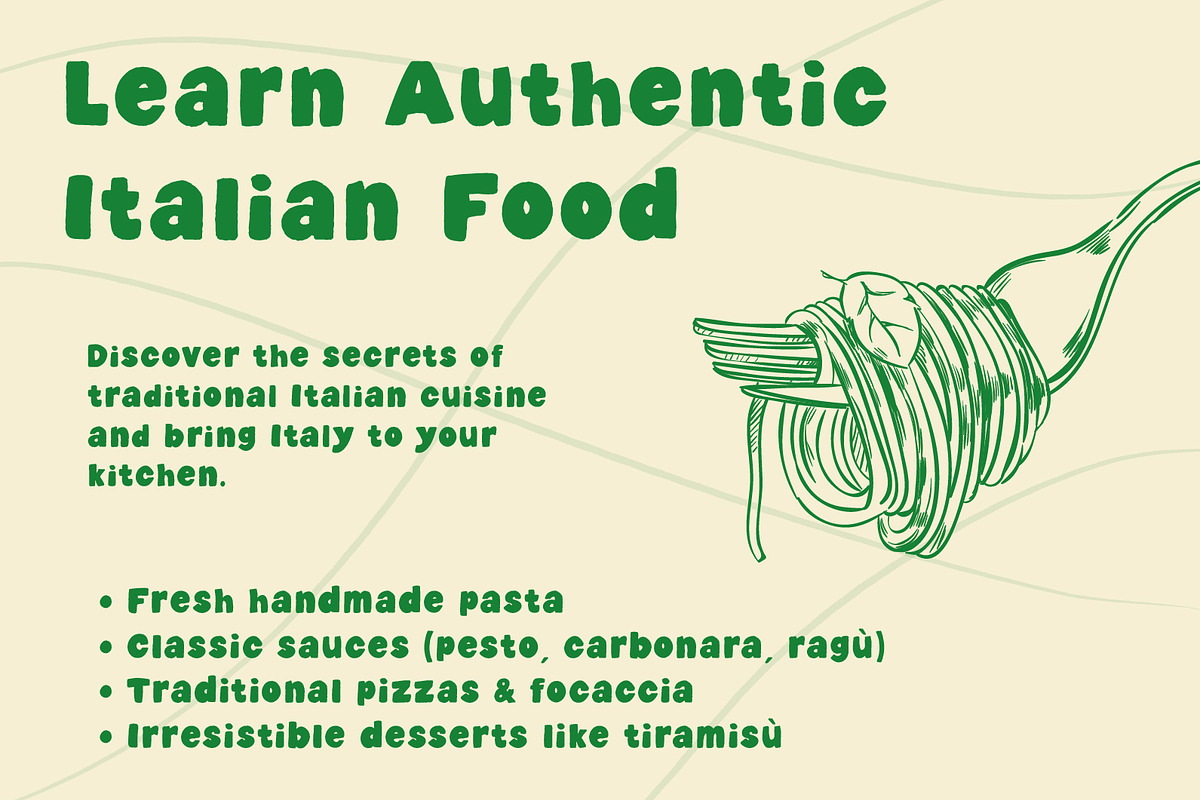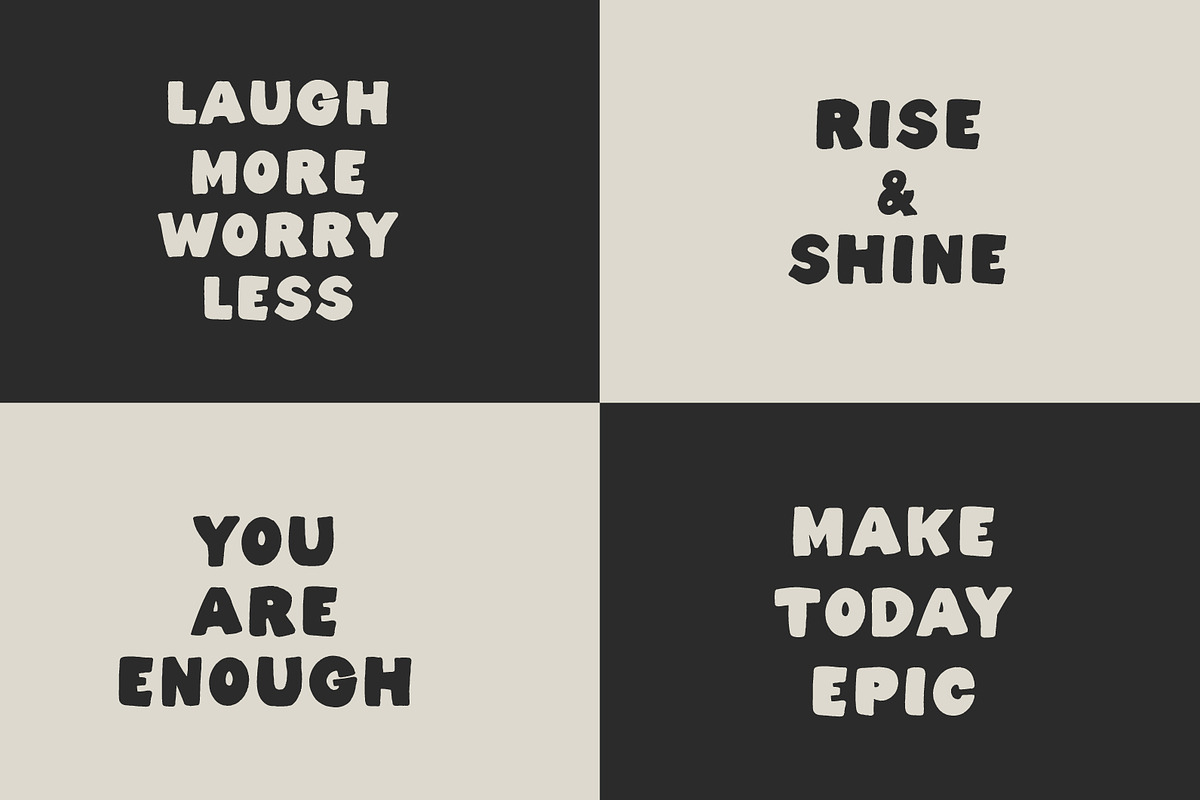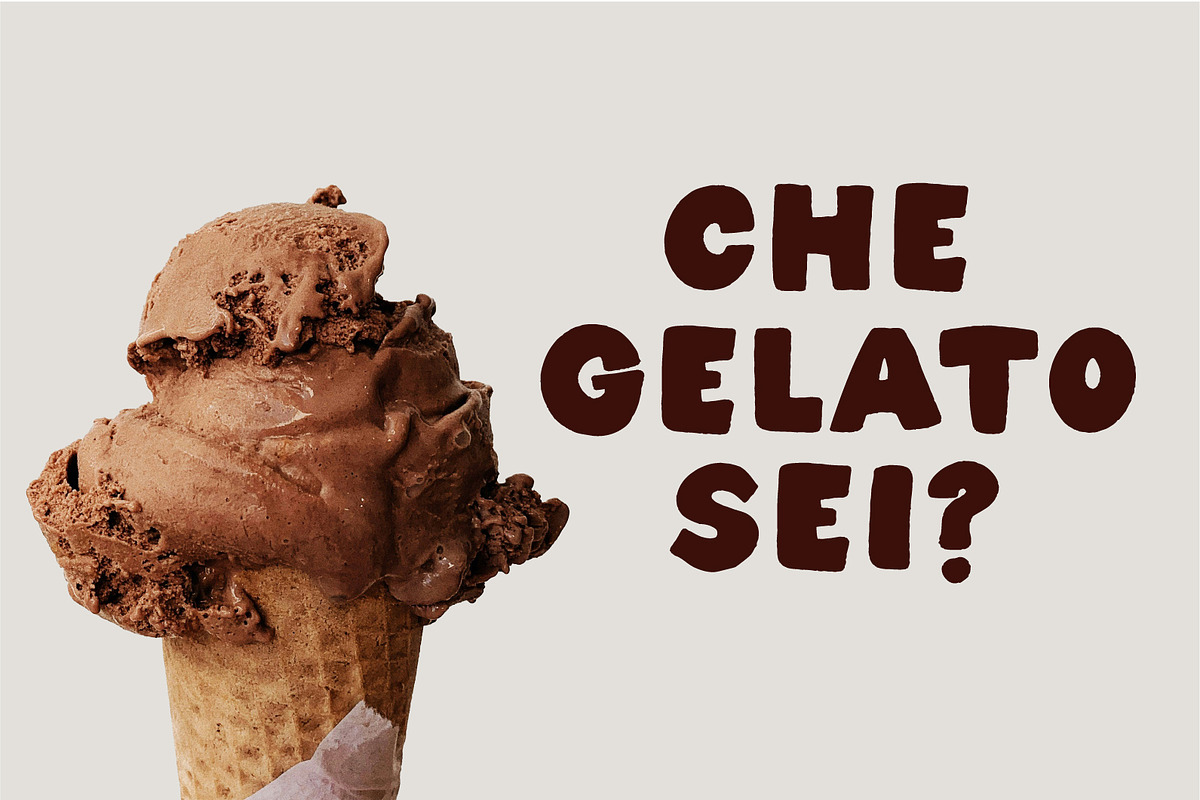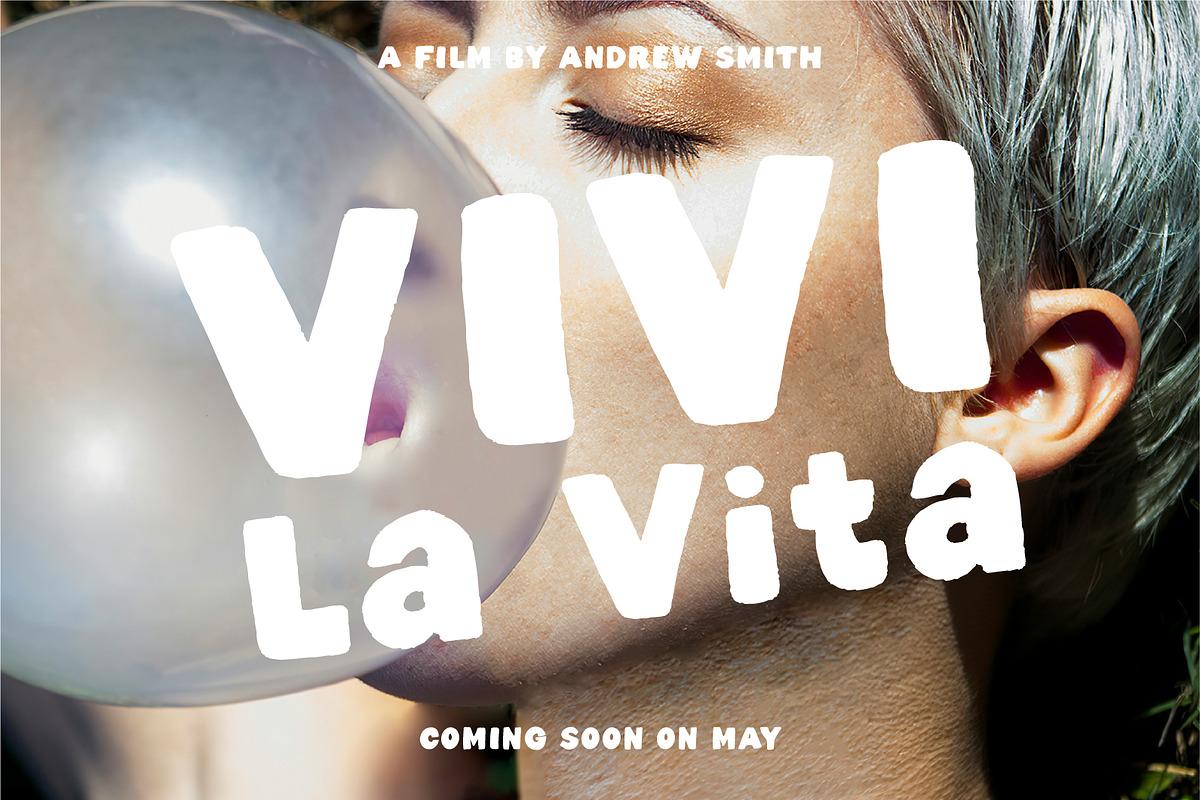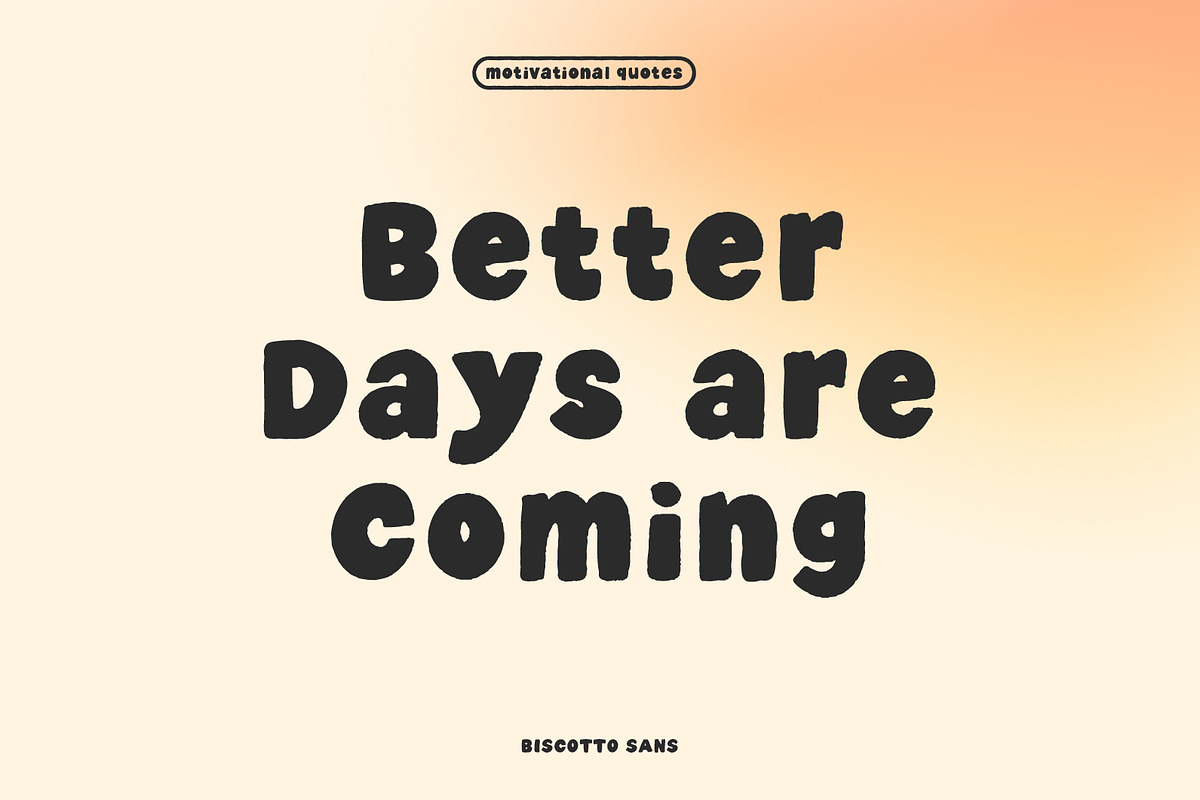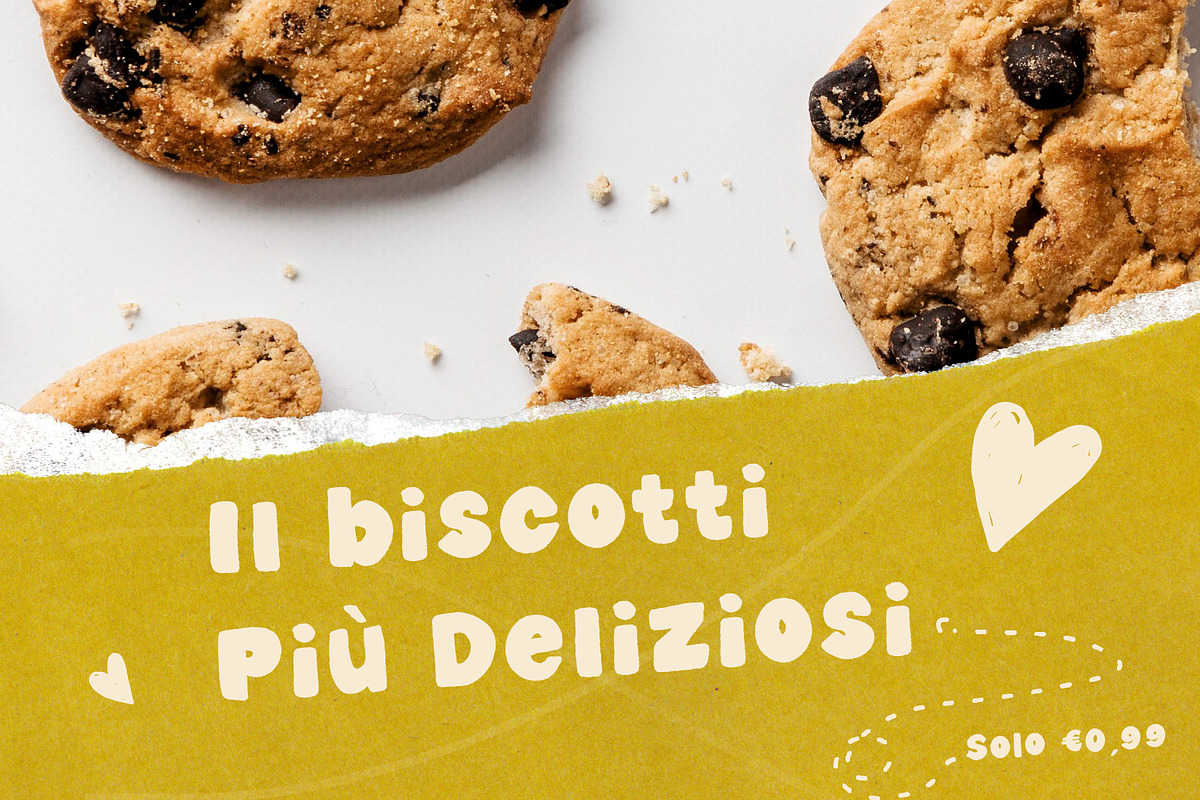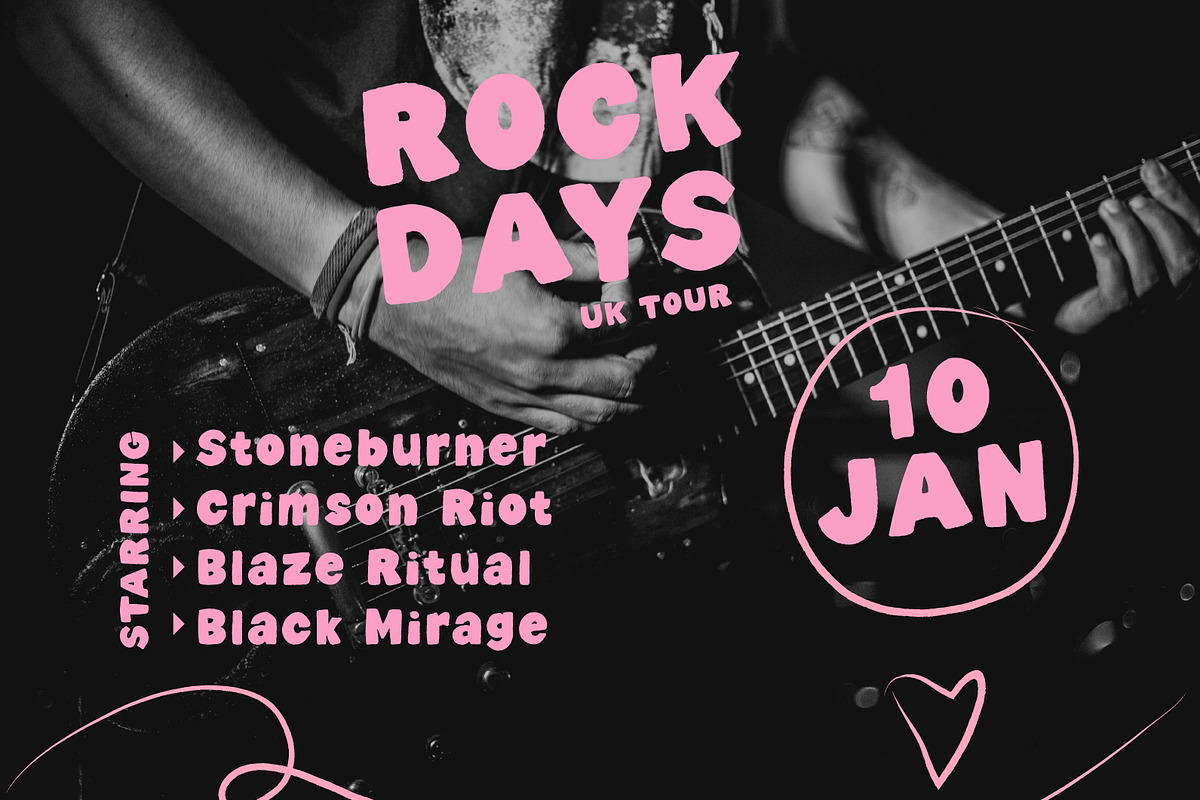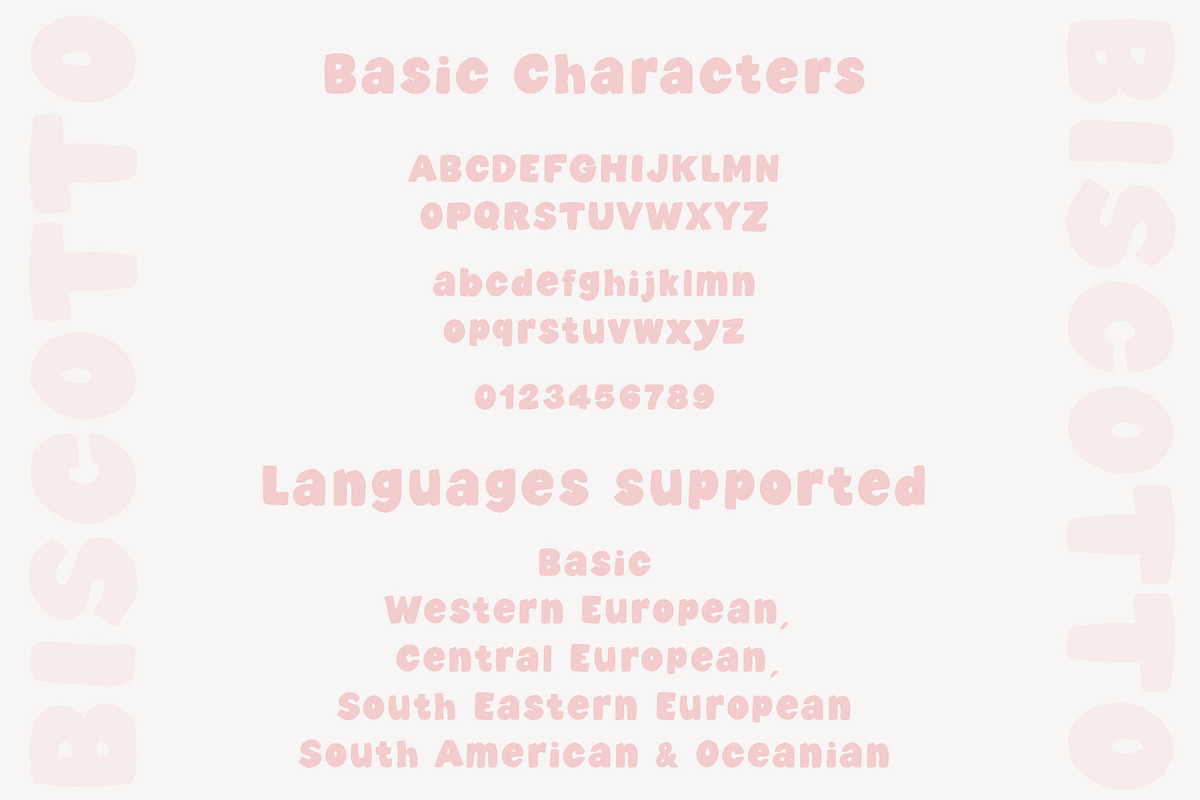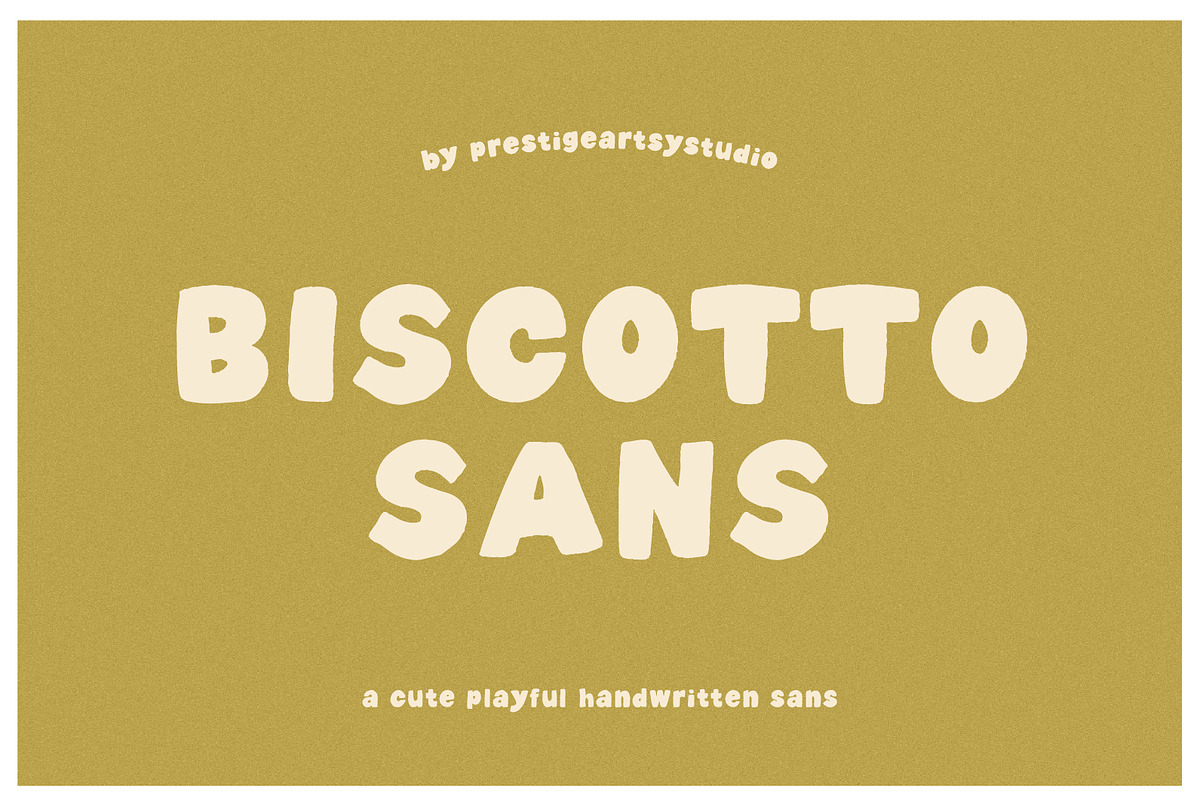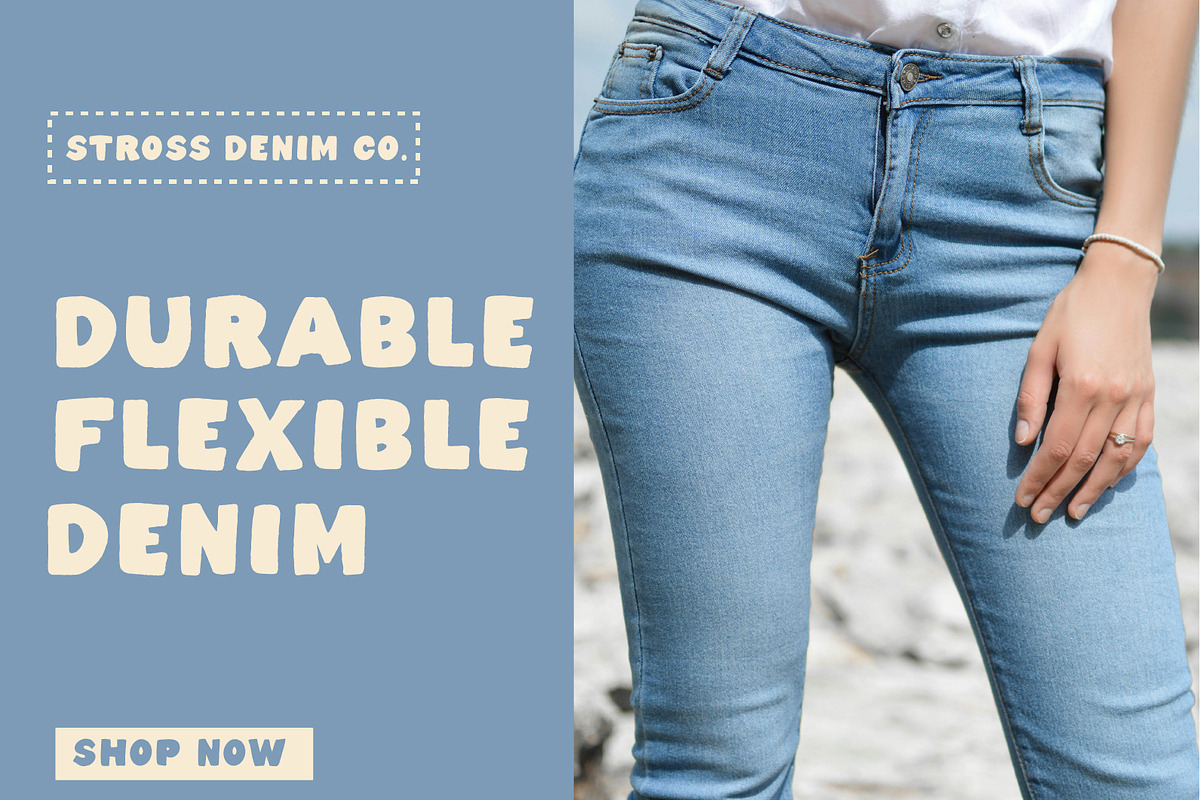
Biscotto Sans
✨ Biscotto Sans ✨
A cute and playful handwritten sans
Biscotto Sans is a bold, crispy handwritten font that’s packed with charm. With its rounded shapes and friendly strokes, it brings a joyful, handmade feel to any design. Perfect for projects that call for warmth, fun, and personality, Biscotto Sans will make your text pop in a unique way.
Use it for:
- Logos & Branding – give your brand a playful, approachable voice
- Posters & Flyers – stand out with bold and eye-catching titles
- Social Media & Quotes – add character and personality to your posts
- Invitations, Greeting Cards & Crafts – bring a touch of charm to special occasions
- Product Packaging – make your items feel handmade and delightful
- Crispy, bold handwritten style
- Numbers & basic punctuation
Biscotto Sans is fun, versatile, and super easy to use—perfect for adding a dose of cuteness and bold personality to all your creative projects!